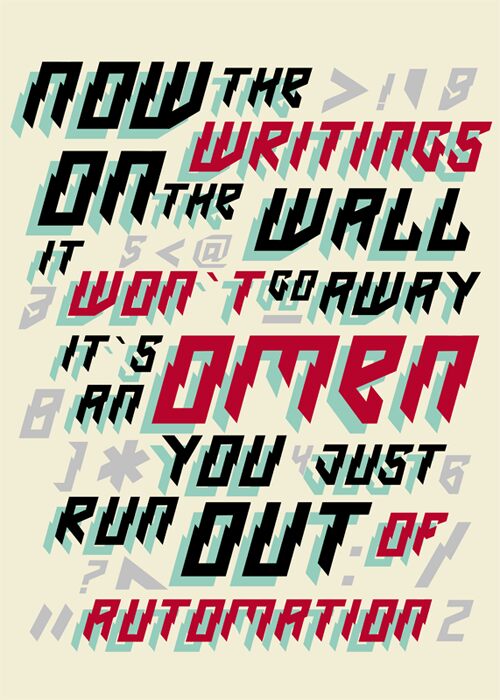
Omen by Milena Gajovic is a free techno display font with a severe, angular build. Broad strokes meet deep triangular cuts, producing jagged silhouettes that suggest machined lettering damaged by sharp impacts.
Its industrial sci-fi character suits game graphics and electronic music posters. The aggressive forms also fit streetwear branding and action-themed packaging, while magazine designers can use them for forceful cover lines tied to technology, motorsports, or dystopian fiction.
The font is based on The Prodigy’s new logo, which appeared on the album Invaders Must Die.